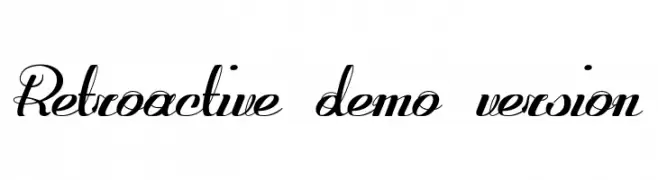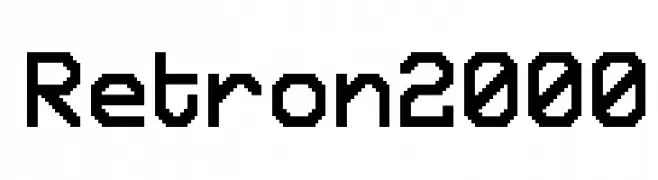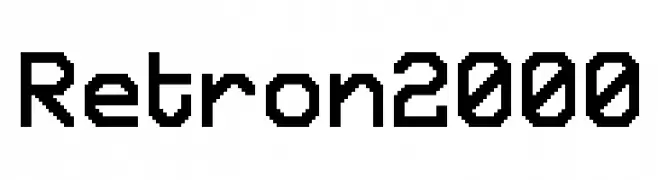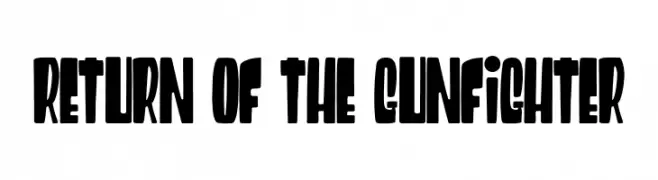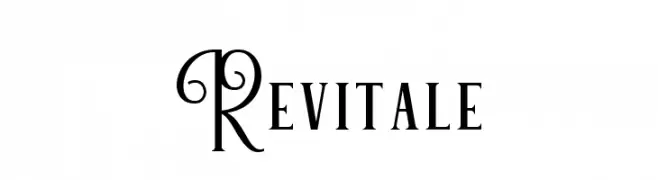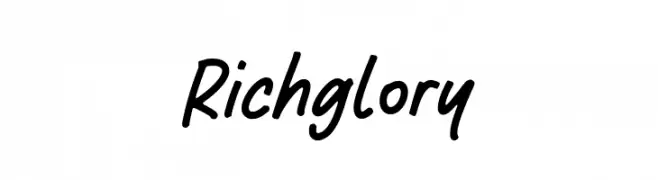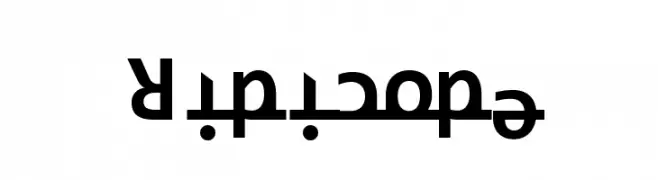
• Retroactive_demo-version
An elegant and decorative script font with flowing, cursive letterforms.
• Retron2000
A pixelated, blocky font with a retro digital style.
• Retron2000
A pixelated, retro-style font inspired by early digital displays.
• Return of the Gunfighter
A bold, decorative font with thick, blocky letterforms and high contrast.
• Revitale
A decorative serif font with ornate uppercase letters and clear numerals.
• RHINOCEROS Break THE Wall
A bold, geometric font with angular, blocky letterforms.
• Richglory
A casual, handwritten-style font with smooth, flowing curves.
• Ridicode
• Right Mellody
A dynamic, cursive script font with flowing, artistic strokes.